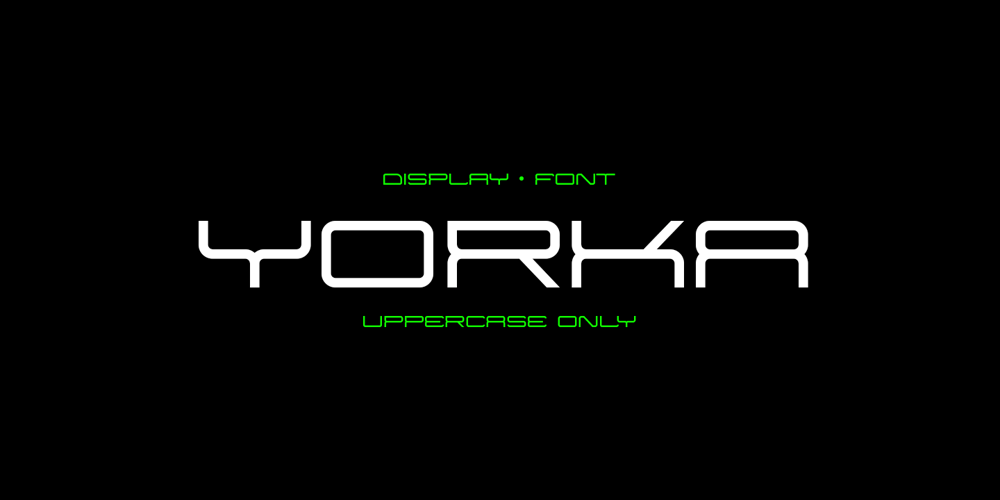
Yorka Font Family was designed by Grapya Hardia and published by Huruforia. Yorka contains 1 styles and family package options. Yorka is a mecha style display sans serif font, this font only consists of Uppercase Letters & multilingual support. Yorka is perfect for Logotype, Print Design, Label, Product, and more.OTF format fonts are also easy to install and support for Mac or Windows.Hopefully, our work is useful for you.